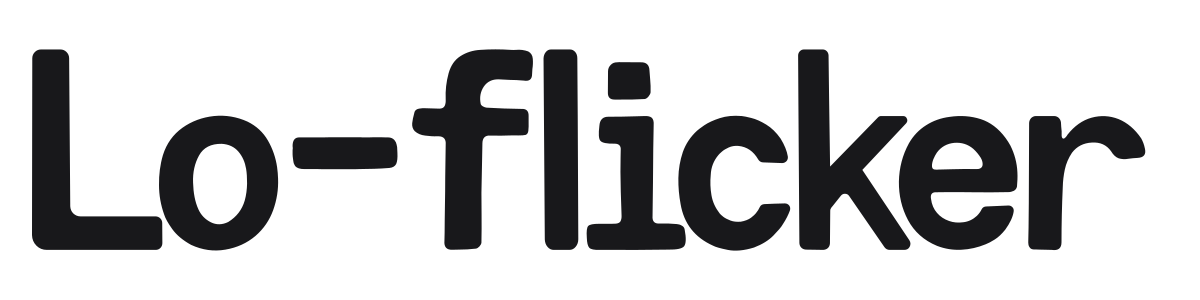
Lo-flicker
Lo-flicker is a bold rounded sans-serif with heavy weight and softly curved terminals across every character. The near-monoweight construction and generous proportions give it a clean, approachable confidence that works well at large sizes. It sits comfortably in the contemporary grotesque-rounded space without feeling derivative.